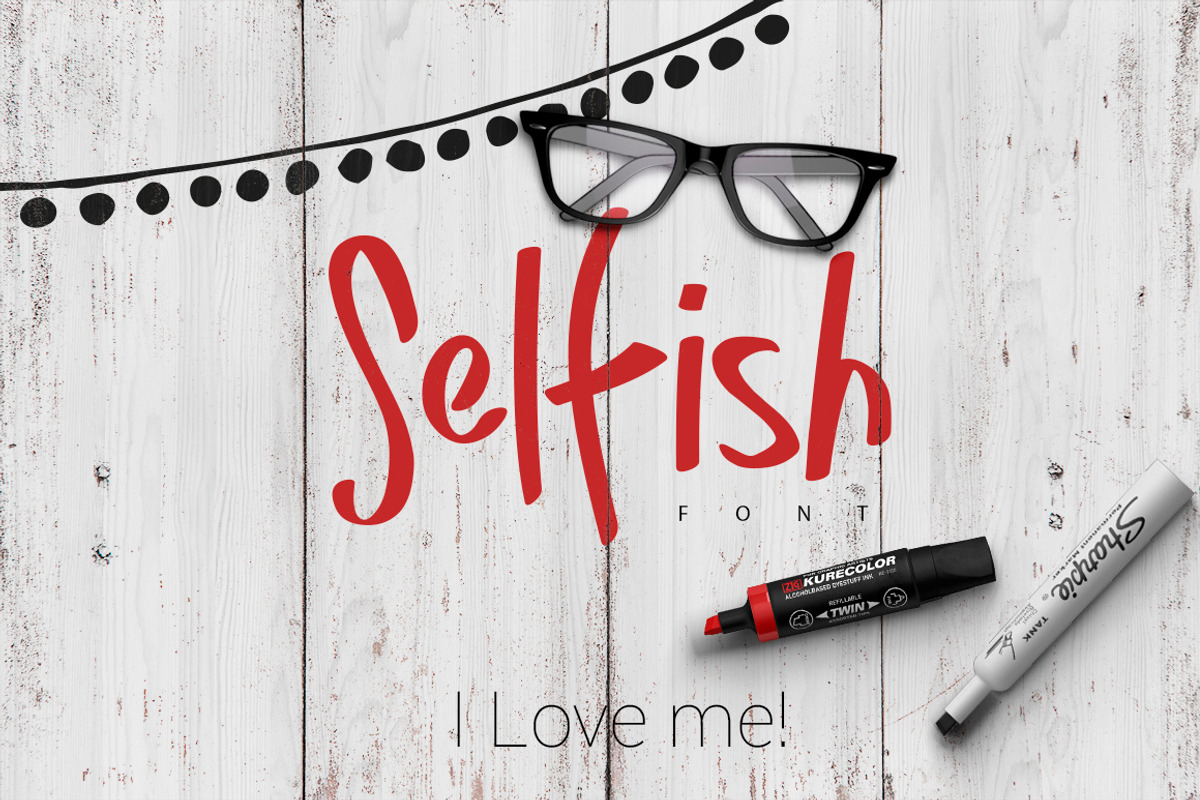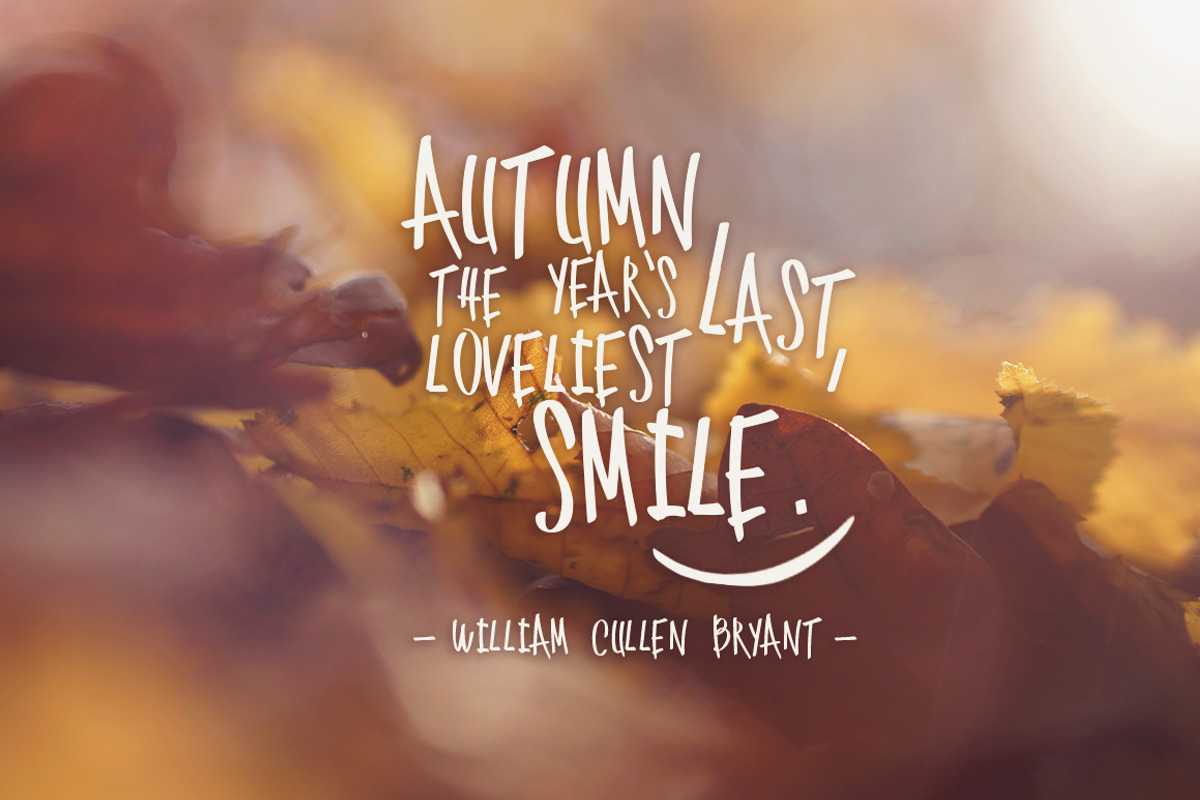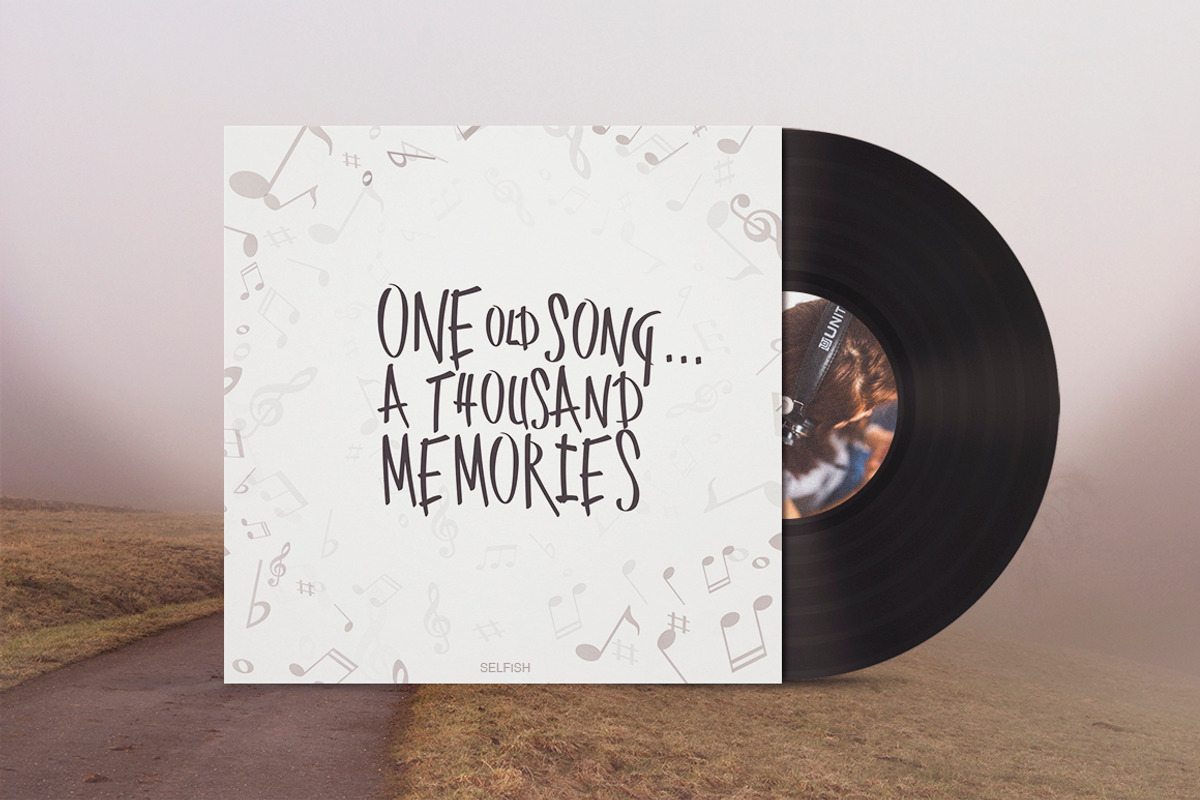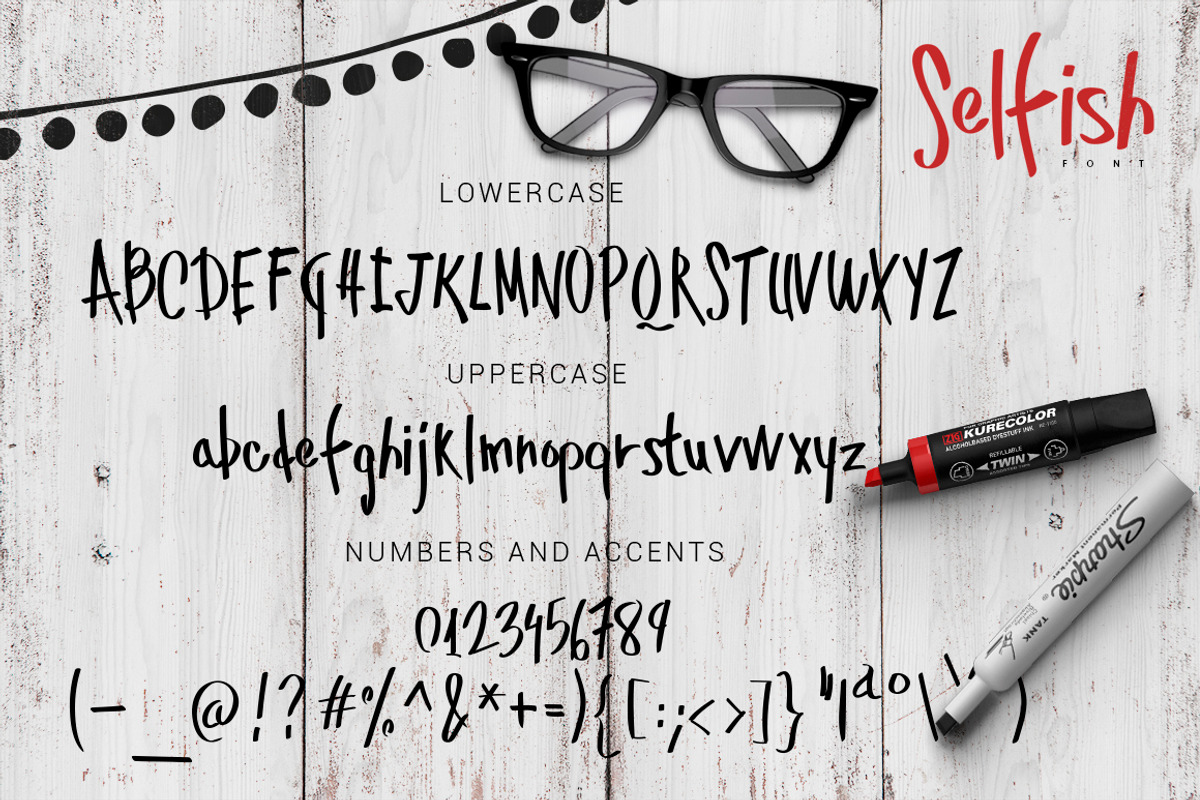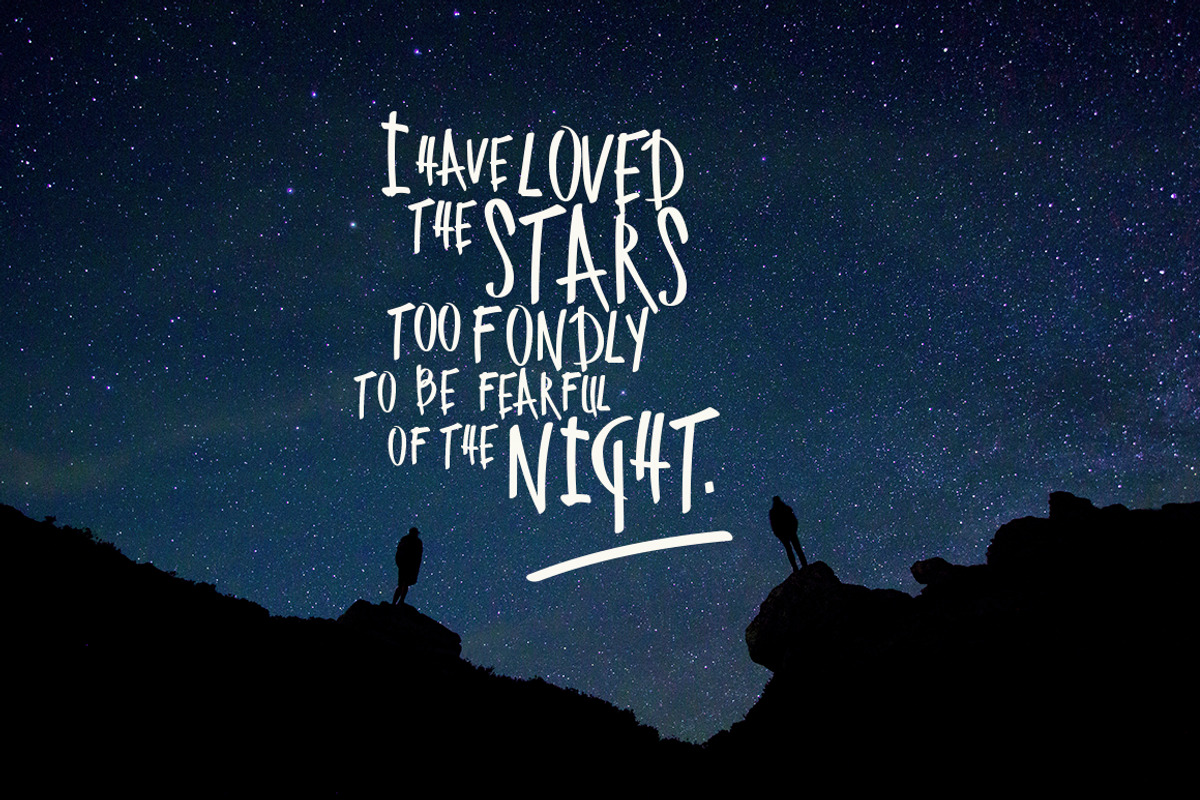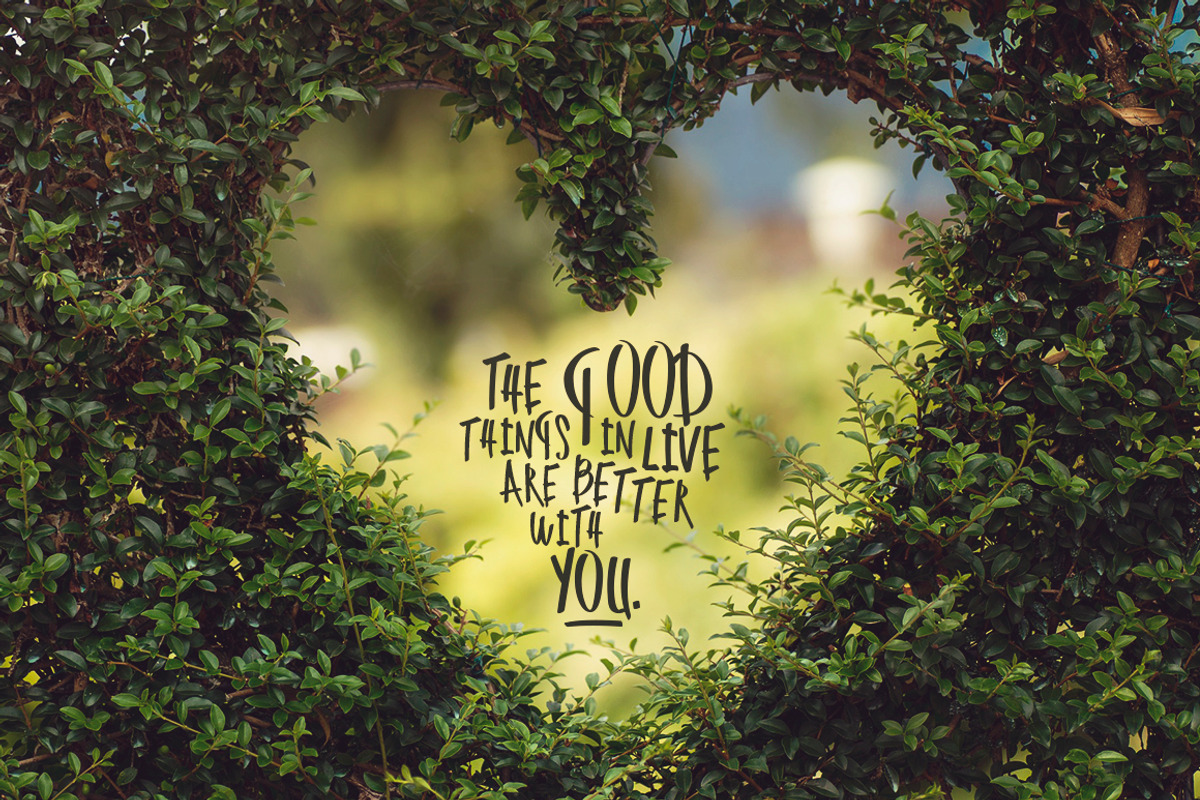
Selfish Font
Selfish Font by MoonfishStudio is a font selected for branding, posters, packaging, typography.
Why Selfish Font is worth a look
Selfish Font by MoonfishStudio fits naturally into Branding, posters, packaging, typography.